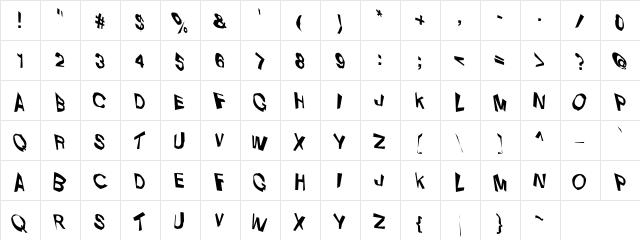
VTC Dizplaced Regular
| Designer | WolfBainX |
Design Context for VTC Dizplaced Typeface
VTC Dizplaced is a composed and adaptable typeface that performs quietly and consistently across a wide range of design contexts.